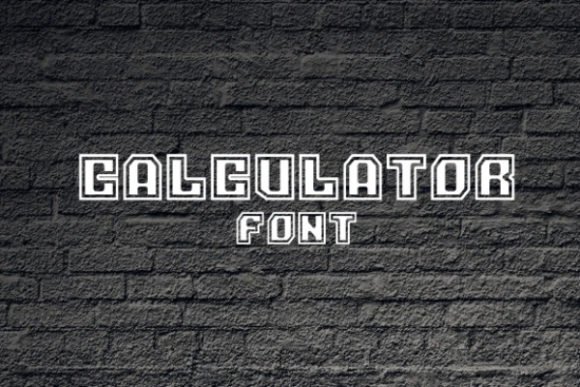
The Calculator Font: A Game-Changer for Designers
Who hasn’t been stuck staring at a blank page, waiting for inspiration to strike? For designers, this moment is all too familiar. But what if the perfect font could be the spark that sets your creativity ablaze? Enter the Calculator Font, a stunning display font that’s about to revolutionize the way you think about typography.
This fantastic typeface is designed to elevate your headlines and blocks of text, effortlessly handling maximum and minimum variations with ease. Whether you’re working on a web project, print materials, or even moving images, Calculator Font is the perfect companion for any design endeavor.
What makes Calculator Font so valuable for designers is its versatility and visual appeal. With its unique character, it’s sure to make your designs stand out from the crowd and leave a lasting impression on your audience.
- Unique Character Set: Calculator Font features a unique set of characters, including mathematical symbols, currency signs, and other special characters, making it ideal for use in financial and scientific applications.
Calculator Font Review
Overall, I think Calculator Font is a decent addition to any design project, but it has some quirks that might not make it my go-to choice.
- It’s a great choice for projects that require a vintage or retro aesthetic.
- The font’s grid-based design makes it easy to read and understand.
- The font can be quite difficult to customize, especially when it comes to font sizes and line heights.
- It may not be the best choice for projects that require a lot of complex typography or fine-tuned font styling.
- The font’s grid-based design can sometimes make it feel a bit rigid or inflexible.
Overall, I’d say Calculator Font is a solid choice for the right project, but it’s not a one-size-fits-all solution. With some careful consideration and planning, it can add a unique touch to your designs.
Getting the Most Out of Calculator Font
Calculator Font is perfect for creating retro-themed designs, such as:
- Old-school calculator designs
- Retro-style infographics
- Vintage-themed presentations
Remember to adjust the font size and color to match the overall aesthetic of your design.
Calculator Font is a sans-serif font known for its simplicity and readability. However, there are other alternatives that offer similar characteristics and unique features. Here are a few options: